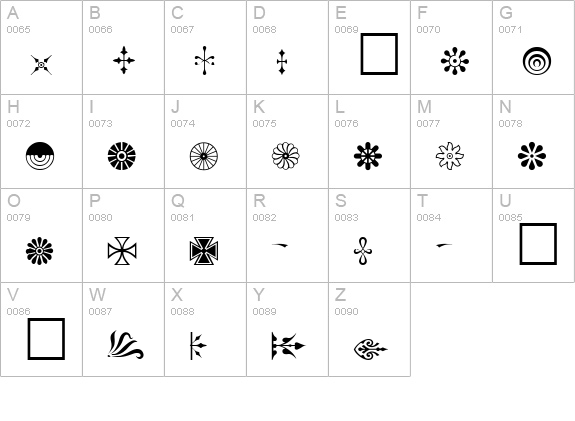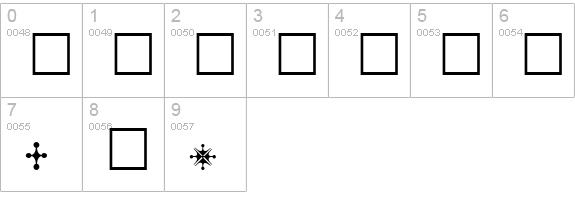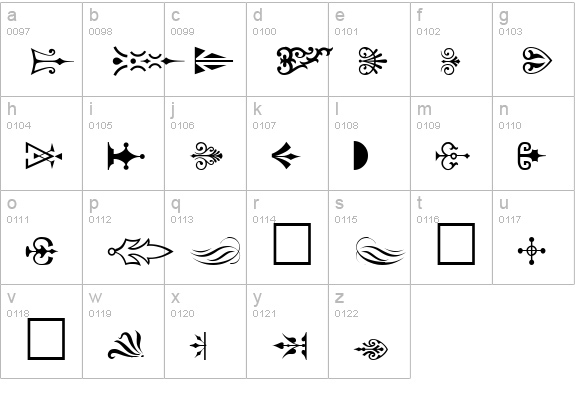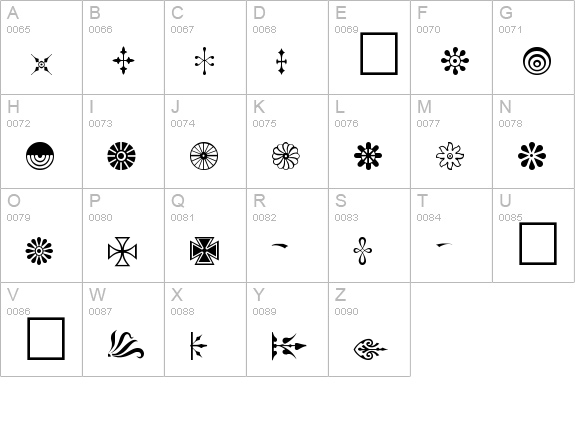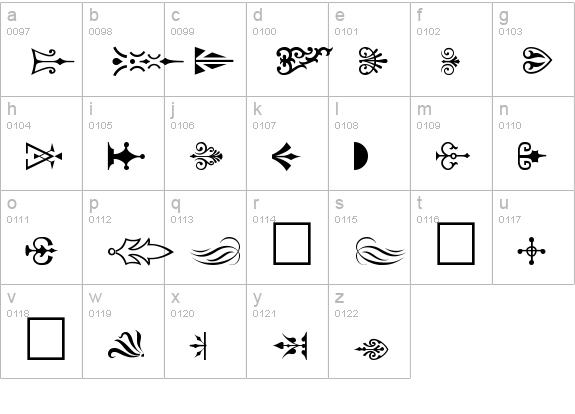
FFX Shapes Font Details
FFX Shapes font is a unique and eye-catching typeface that is perfect for adding a modern and edgy touch to your designs. With its clean lines and geometric shapes, this font is versatile and can be used for a variety of projects, from logos to posters to social media graphics. What sets FFX Shapes font apart is its bold and dynamic appearance, making it stand out from the crowd. It is designed to make a statement and grab the viewer's attention. The best part about FFX Shapes font is that it is completely free to download at FontsMarket.com. This means you can add this striking font to your collection without having to spend a dime. So why wait? Download FFX Shapes font today and start creating visually stunning designs that will impress everyone who sees them.